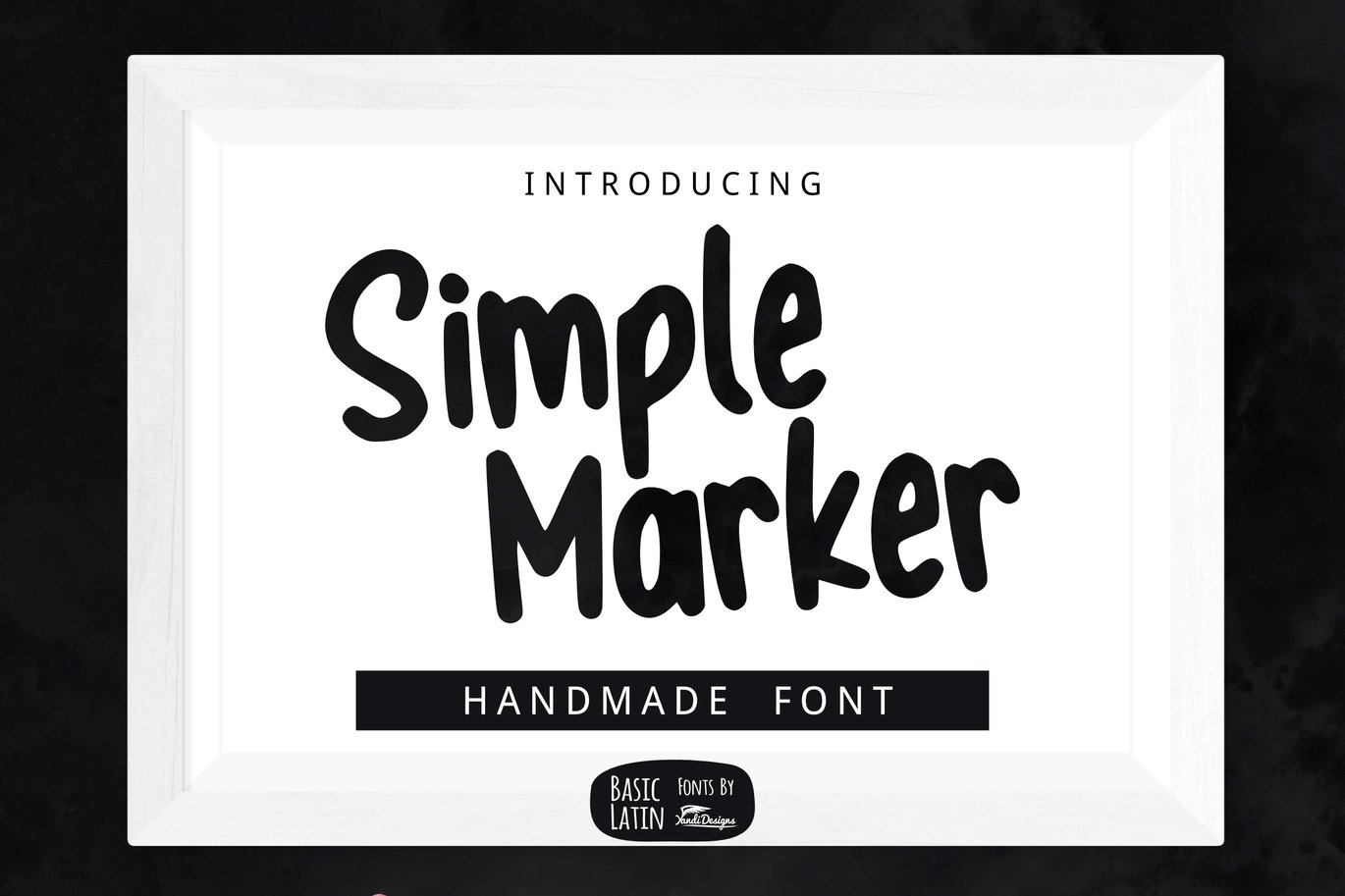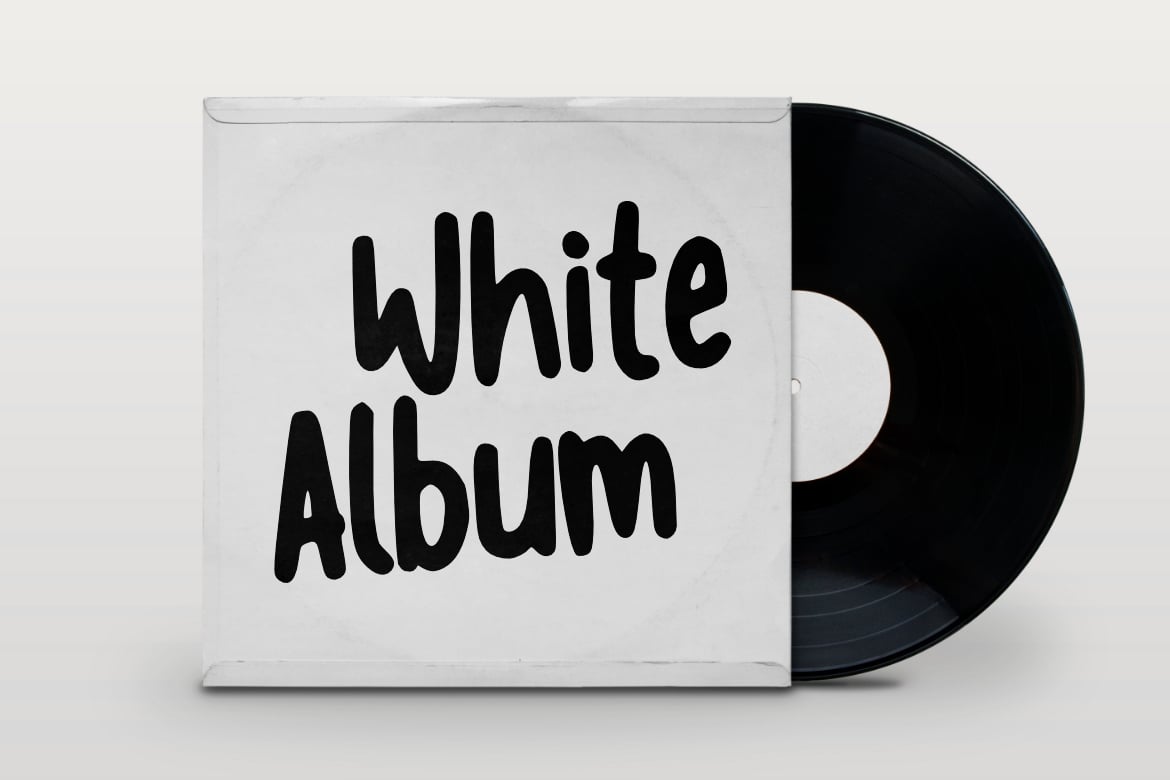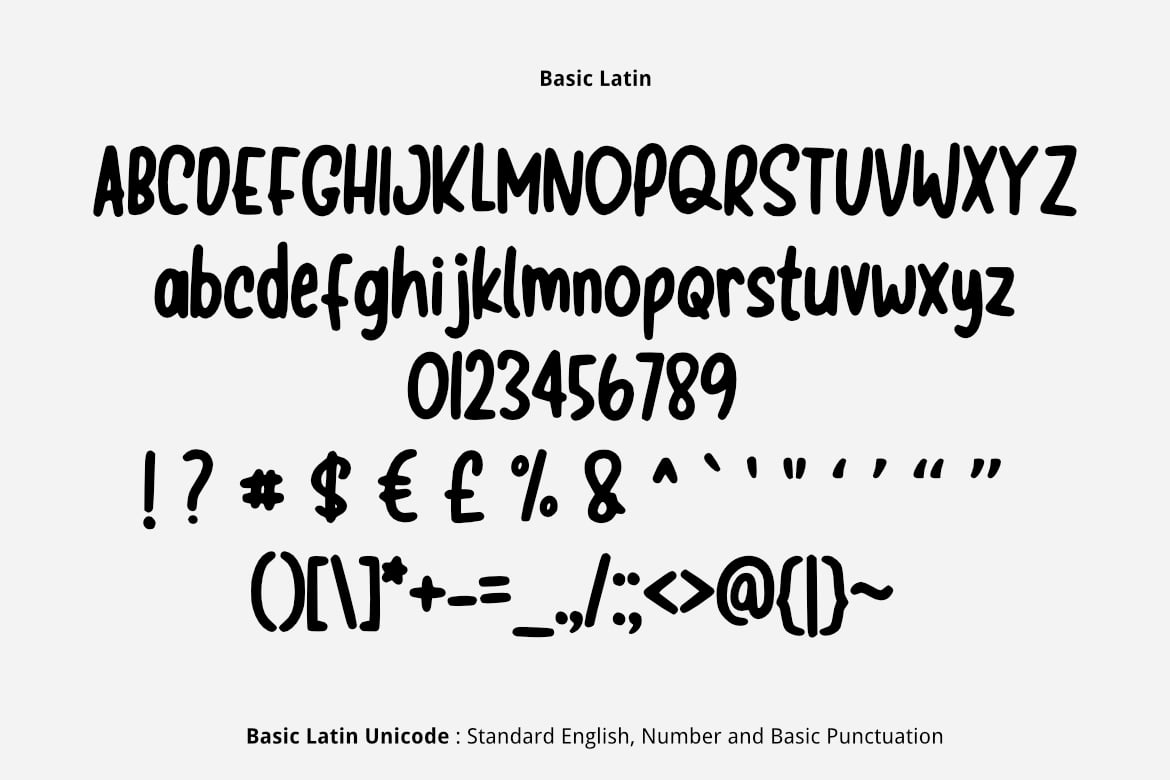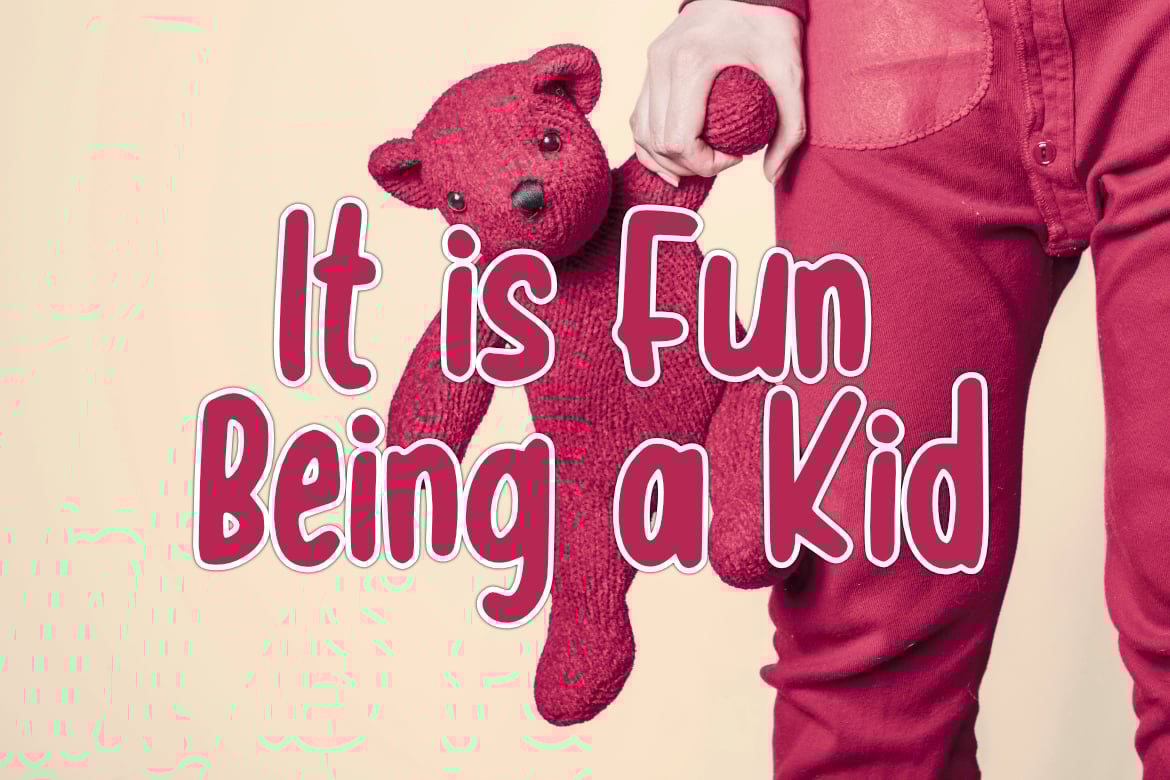
Simple Marker Font
Simple Marker is lovely , cute, simple, multipurpose handwritten marker font , suitable for many project children book, quotes, logo , heading , title etc. Summer and holiday font.
Basic Latin (Standard English character , number, symbol)